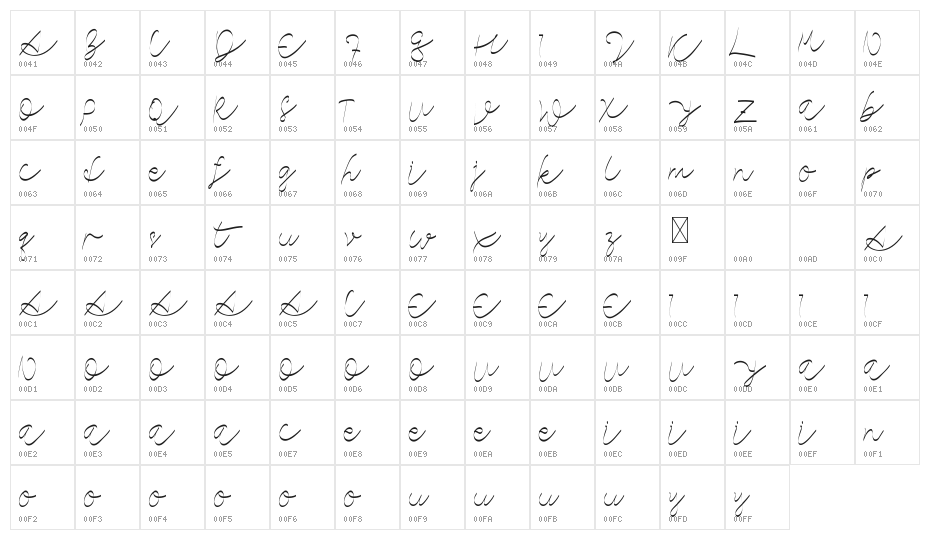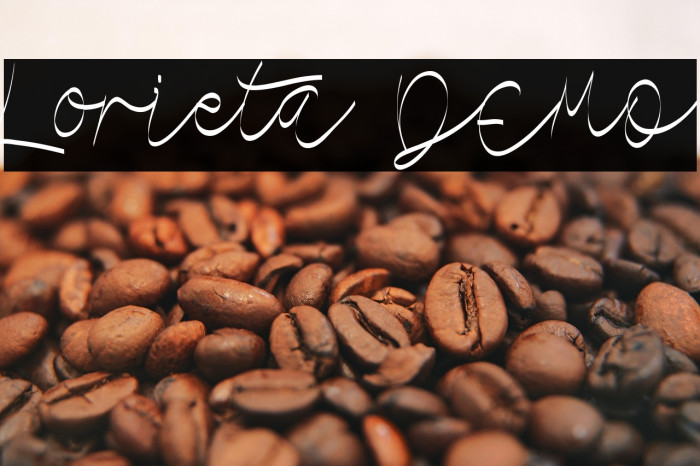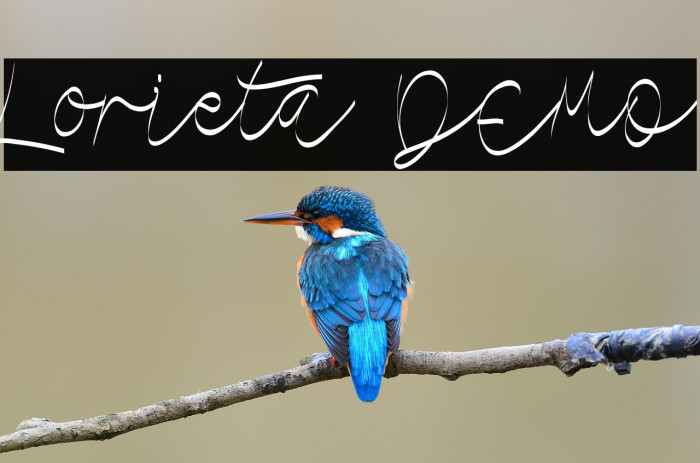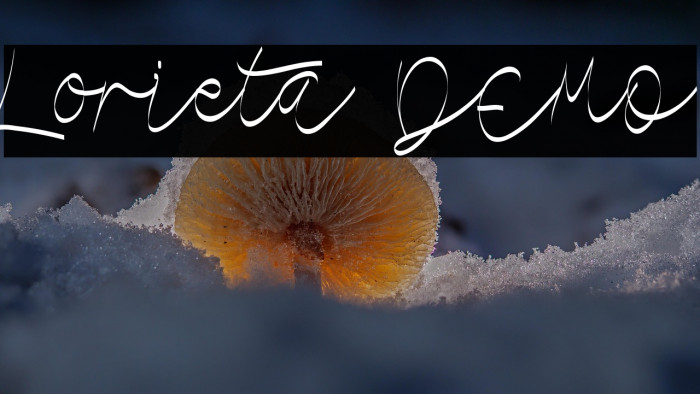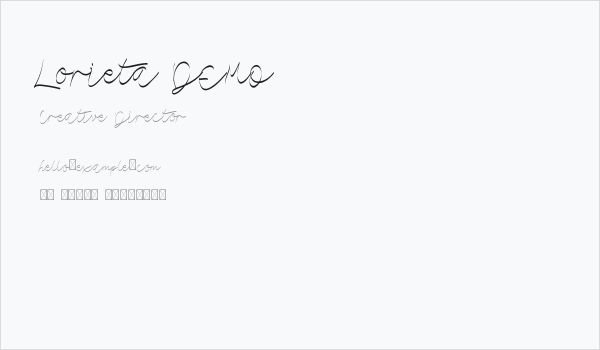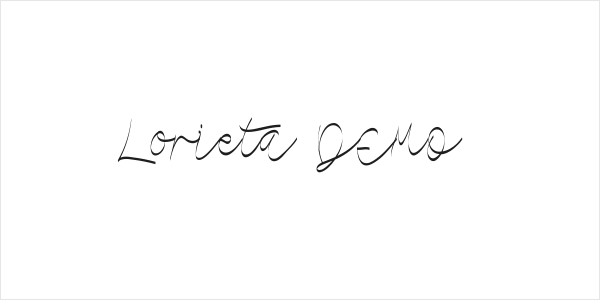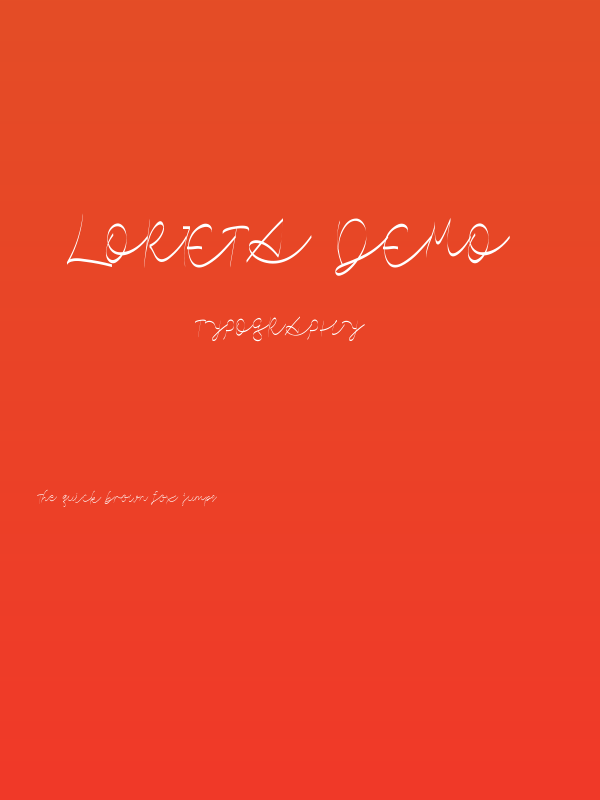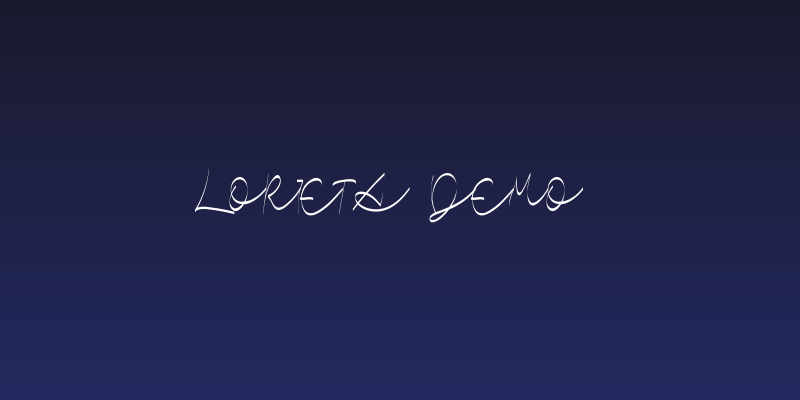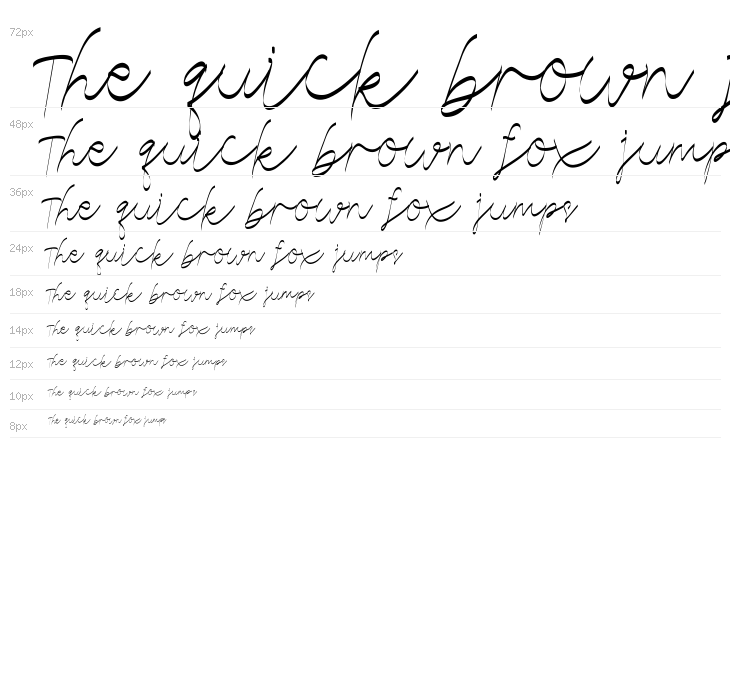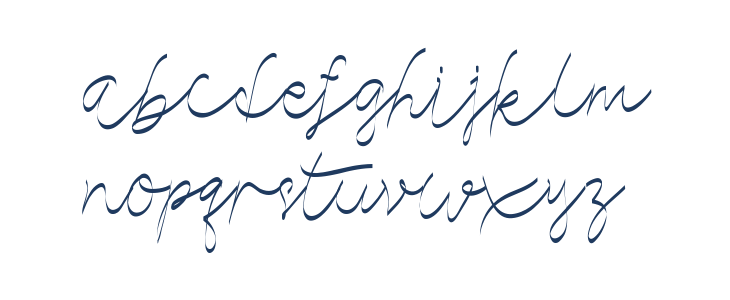
Lorieta DEMO Font
Lorieta DEMO Description
This font exhibits a flowing, cursive style with elegant, sweeping strokes that convey a sense of sophistication and fluidity. The characters are interconnected, creating a seamless and continuous look, reminiscent of classic calligraphy. The uppercase letters are bold and prominent, while the lowercase letters maintain a graceful and delicate appearance. The font's overall design is both artistic and legible, making it suitable for various creative applications. The special characters are integrated seamlessly, maintaining the font's cohesive aesthetic.